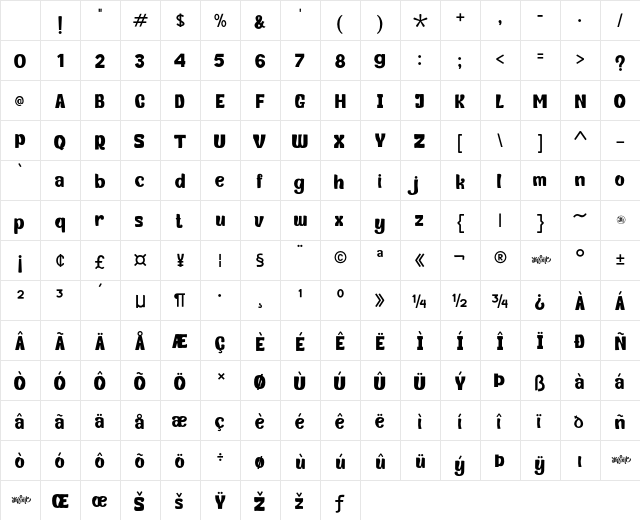
Complete FH Getto Funky Personal Use Display glyph index. Displaying only characters natively supported by FH Getto Funky Personal Use Display font.
FH Getto Funky Personal Use has an approachable, lighthearted character - its loose, expressive forms are well-suited to children's content, casual branding, and fun-first design.
Font Pairing: Pairs well with a rounded or humanist sans for body copy, maintaining the friendly tone without relying on FH Getto Funky Personal Use to carry extended reading.
Pro Tip: Use FH Getto Funky Personal Use at larger display sizes where its expressive character can land. Pair with a clean, simple sans for body copy to maintain readability.